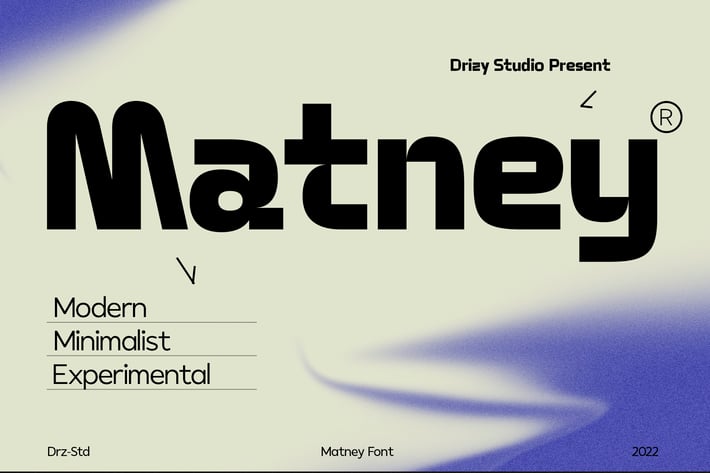
Matney - Modern Minimalist Font
Matney is a Modern Minimalist Font Font from Drizy Studio. Offering all the styles you need for your projects.
Matney features:
Lowercase Only
Punctuation & Numbers
Ligatures
Alternates